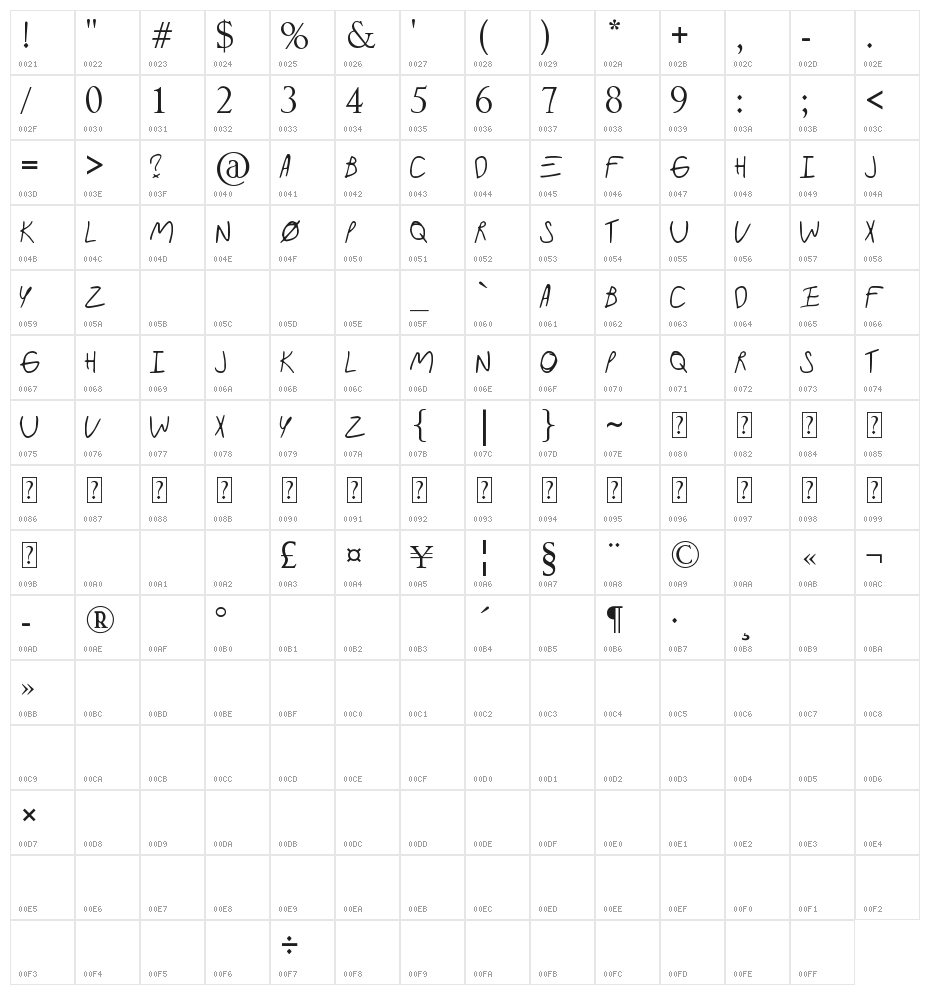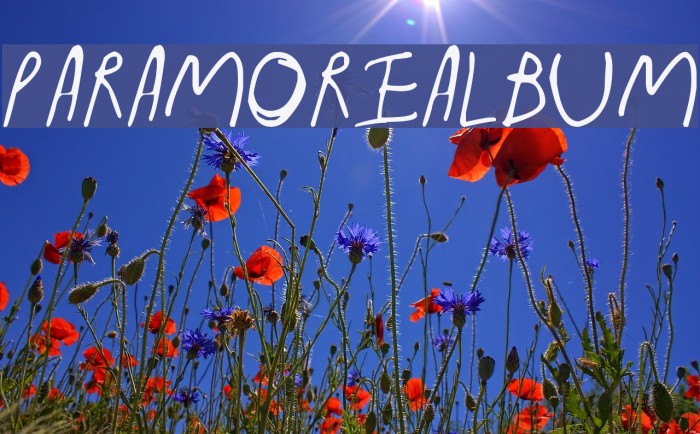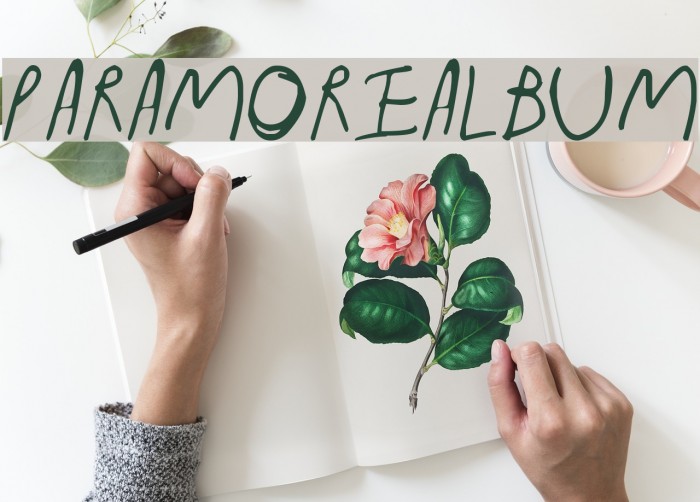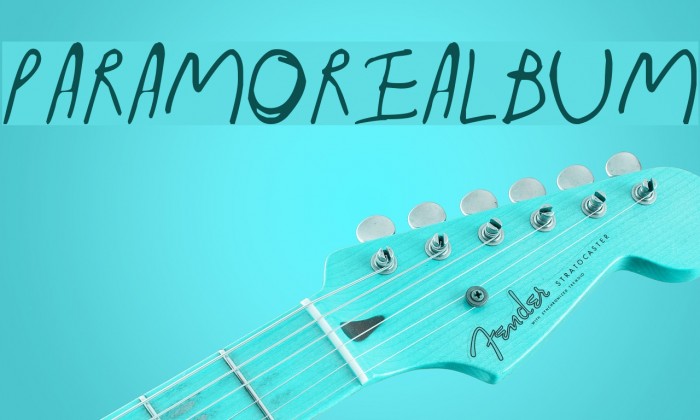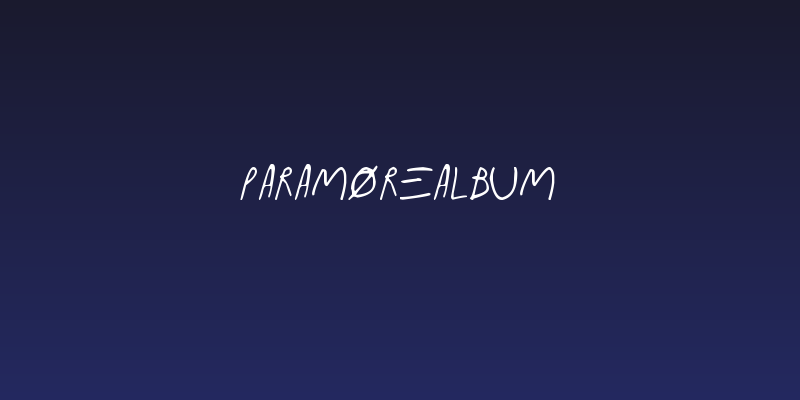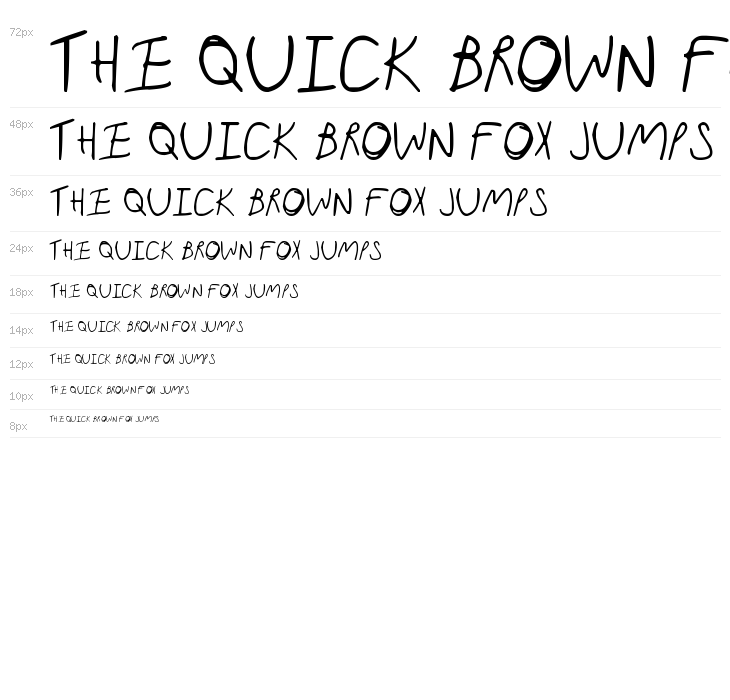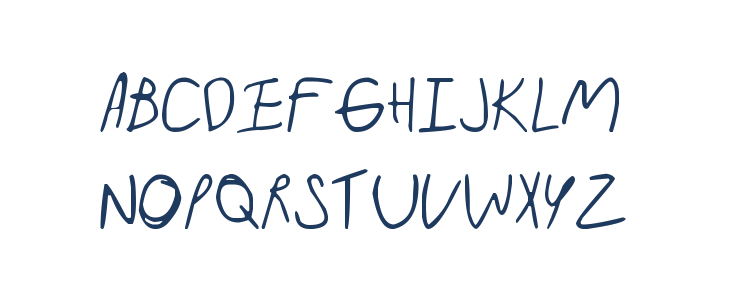
ParamoreAlbum Font
ParamoreAlbum Description
This font features a playful and energetic handwritten style, characterized by its irregular strokes and dynamic flow. The uppercase and lowercase letters maintain a consistent yet lively appearance, with some letters exhibiting unique quirks, such as the slashed zero and the crossed 'ΓΛ'. The numerals are bold and clear, matching the overall whimsical aesthetic. Special characters are creatively integrated, adding to the font's versatility. This font exudes a sense of fun and creativity, making it ideal for projects that require a personal touch.